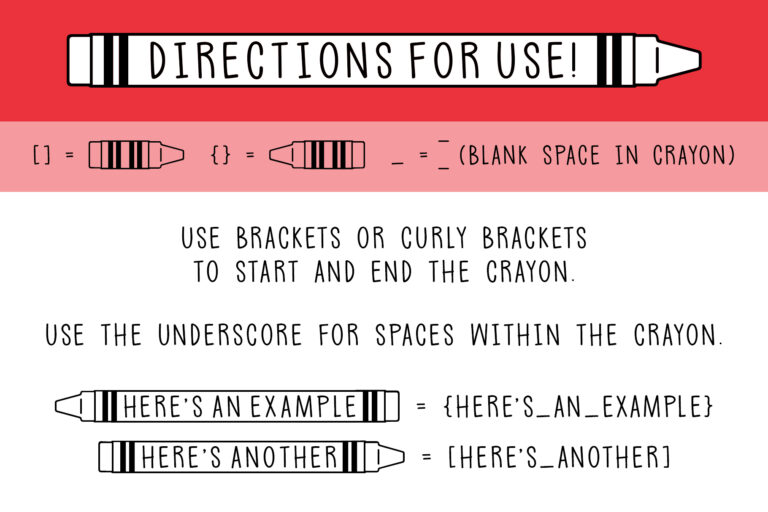
Crayonified Font
The Crayonified Font is a fun way to add words or names to crayons. Just use brackets [] or curly brackets {} to start and end the crayon and the underscore _ for any spaces between words on the crayon. Great for classroom decor or making student nameplates! This font contains just the standard alphabet and basic punctuation.